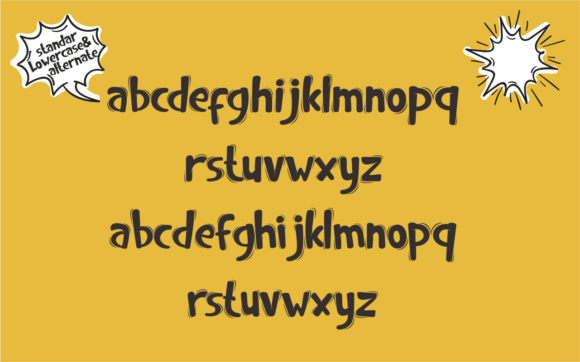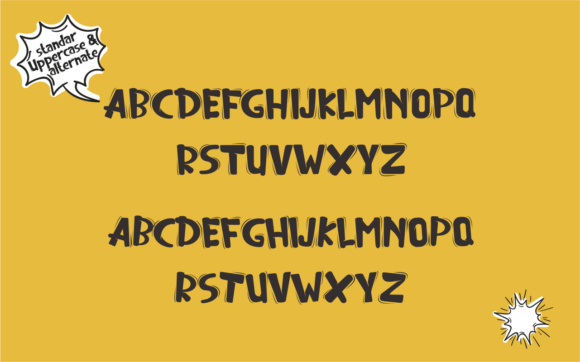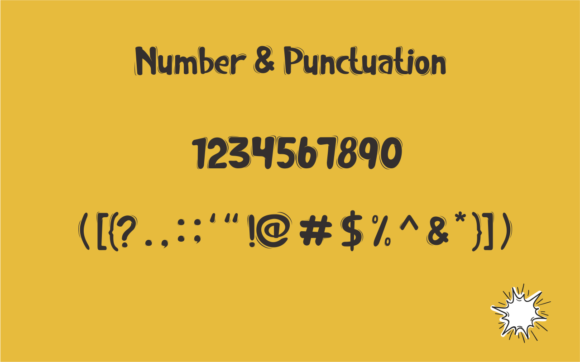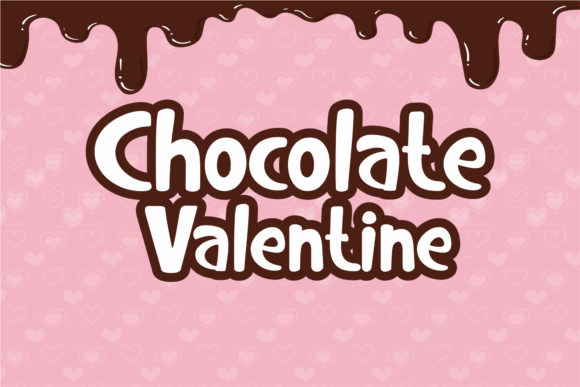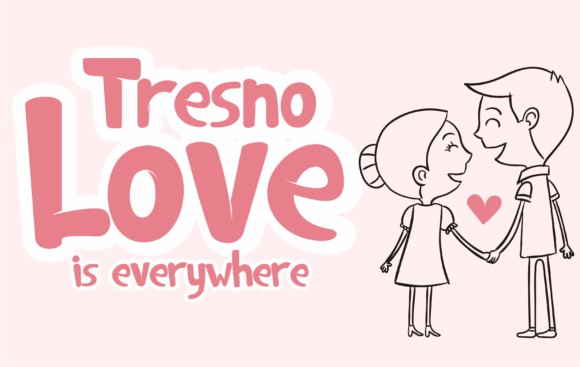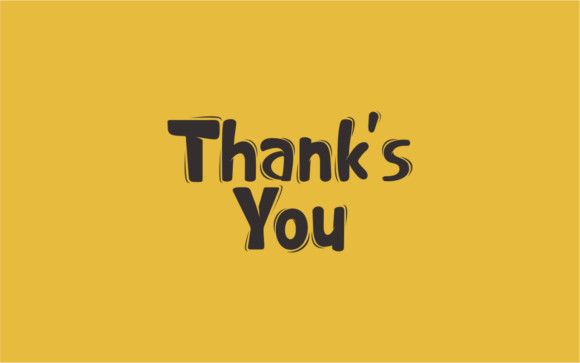
Introducing Best in Class Font: Elevate Your Designs with a Fun and Unique Display Type Font
Are you tired of using the same old fonts in your designs? Look no further! Best in Class Font is a game-changing display type font that can add a fun feel to a wide range of projects. With its unique and stylish design, this font is perfect for designers and crafters who want to make their work stand out. In this article, we’ll explore the features and benefits of Best in Class Font, and why it’s a must-have for any creative professional.
What is Best in Class Font?
Best in Class Font is a specially designed display type font that is perfect for adding a touch of fun and personality to your designs. Its unique and stylish design makes it ideal for use in a variety of projects, from posters and flyers to social media graphics and website headers. This font is sure to grab attention and leave a lasting impression on your audience.
Key Features of Best in Class Font
- Unique and Stylish Design: Best in Class Font has a one-of-a-kind design that is sure to make your work stand out.
- Perfect for Display Use: This font is specifically designed for display use, making it perfect for headlines, titles, and other attention-grabbing elements.
- Includes Two Bonus Fonts: Best in Class Font comes with two stunning bonus fonts, Chocolate Valentine and Tresno In Love, which can add even more variety to your designs.
The Bonus Fonts: Chocolate Valentine and Tresno In Love
One of the best things about Best in Class Font is that it comes with two stunning bonus fonts: Chocolate Valentine and Tresno In Love. These fonts are perfect for adding a touch of whimsy and romance to your designs. Chocolate Valentine is a sweet and playful font that’s perfect for Valentine’s Day or other romantic-themed projects, while Tresno In Love is a beautiful and elegant font that’s ideal for more formal designs.
Why Choose Best in Class Font?
So why choose Best in Class Font over other fonts on the market? Here are just a few reasons:
- Stand Out from the Crowd: With its unique and stylish design, Best in Class Font is sure to make your work stand out from the crowd.
- Versatile: This font is perfect for use in a wide range of projects, from posters and flyers to social media graphics and website headers.
How to Use Best in Class Font in Your Designs
Using Best in Class Font in your designs is easy! Here are a few tips to get you started:
- Use it as a Headline Font: Best in Class Font is perfect for use as a headline font, adding a touch of fun and personality to your titles and headings.
- Add it to Your Social Media Graphics: This font is perfect for use in social media graphics, adding a touch of whimsy and personality to your posts and updates.
- Use it in Your Website Header: Best in Class Font is a great choice for website headers, adding a touch of style and sophistication to your website.
In conclusion, Best in Class Font is a game-changing display type font that’s perfect for designers and crafters who want to add a fun feel to their work. With its unique and stylish design, two bonus fonts, and ease of use, this font is a must-have for any creative professional. Whether you’re working on a poster, social media graphic, or website header, Best in Class Font is sure to make your work stand out from the crowd.